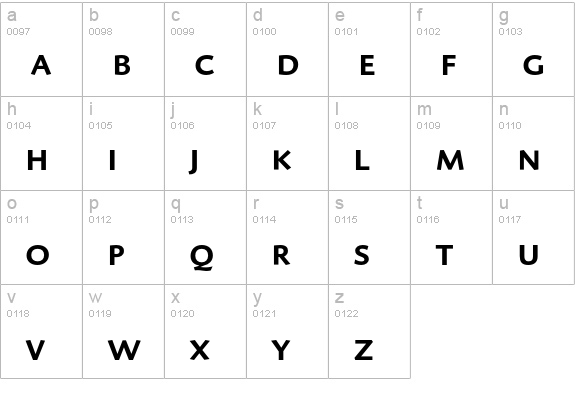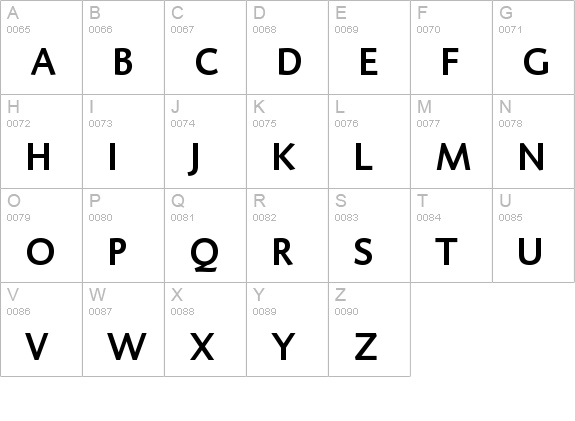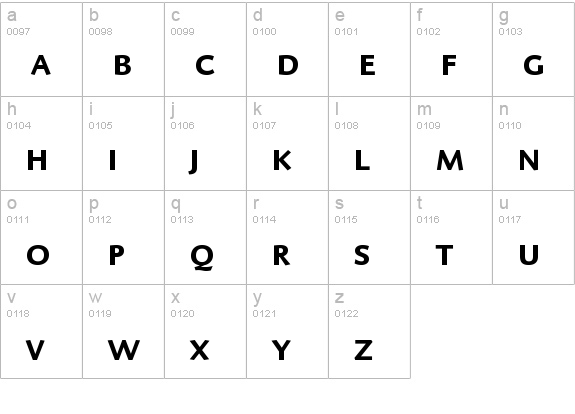
DTLCaspariTCaps-Medium Font Details
DTLCaspariTCaps-Medium is a balanced, medium-weight variant in the DTLCaspariTCaps typeface family \xE2\x80\x94 well suited to sub-headlines, navigation, and balanced editorial work.
DTLCaspariTCaps-Medium is a versatile and elegant font that exudes a sense of sophistication and charm. With its balanced letterforms and timeless design, this font is perfect for a wide range of creative projects, from branding to editorial design. Its medium weight strikes the perfect balance between readability and impact, making it suitable for headlines, logos, and body text alike. What sets DTLCaspariTCaps-Medium apart is that it is available for free download at FontsMarket.com. This means that you can easily access this high-quality font without any cost, making it a valuable addition to your font library. Whether you are a designer, artist, or hobbyist, DTLCaspariTCaps-Medium offers a stylish and professional option for your typographic needs. Download it today and elevate your designs with this exceptional typeface.